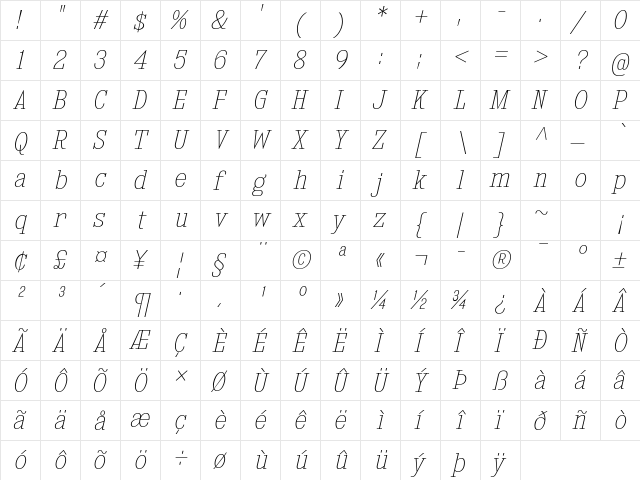
Kingsbridge SemiCondensed UltraLight Italic Font Preview
Design Context for Kingsbridge Typeface
Kingsbridge takes a measured approach to typography — its balanced proportions and neutral character make it a reliable workhorse for both digital and print work. The slanted form adds forward momentum and visual energy. Its slender proportions lend an understated elegance to any composition. Its narrow stance lets it pack a punch even in space-constrained designs.
Pro Tip: Use Kingsbridge for emphasis, pull quotes, and subheadings where its slanted energy can add rhythm to the layout.